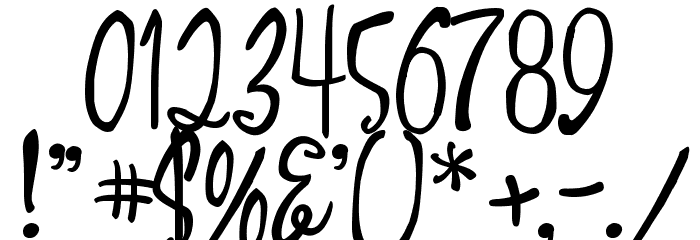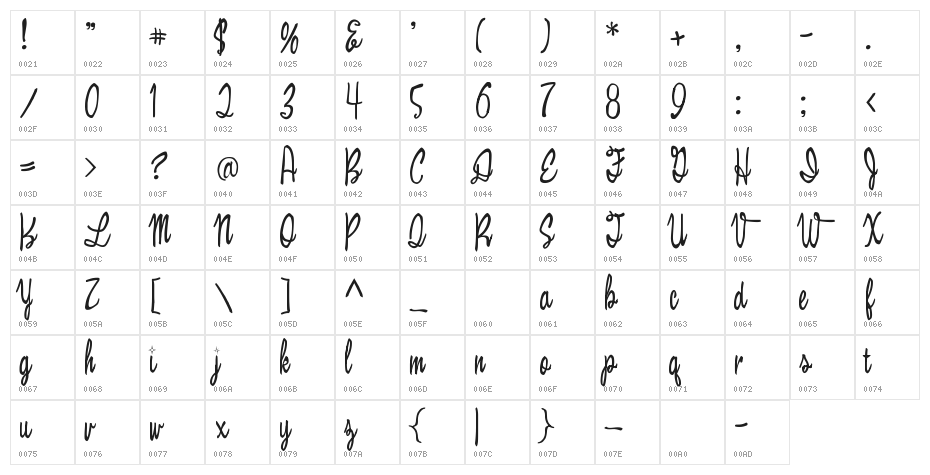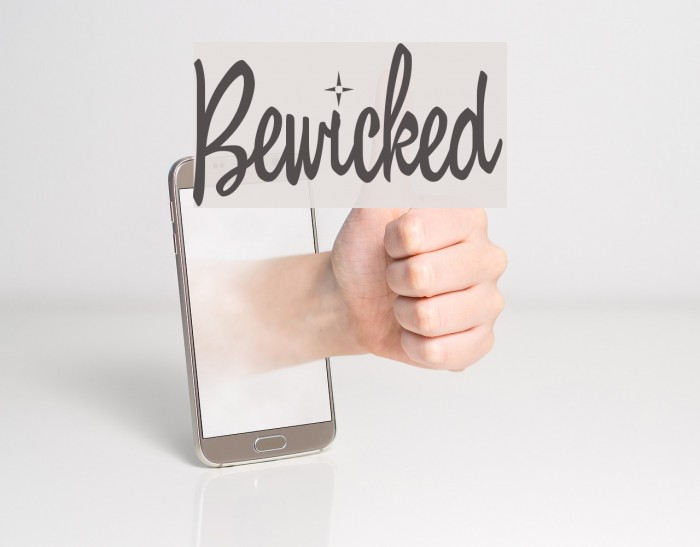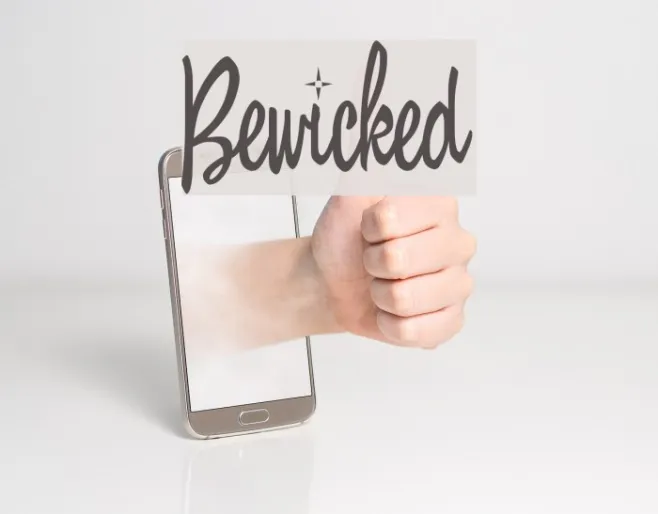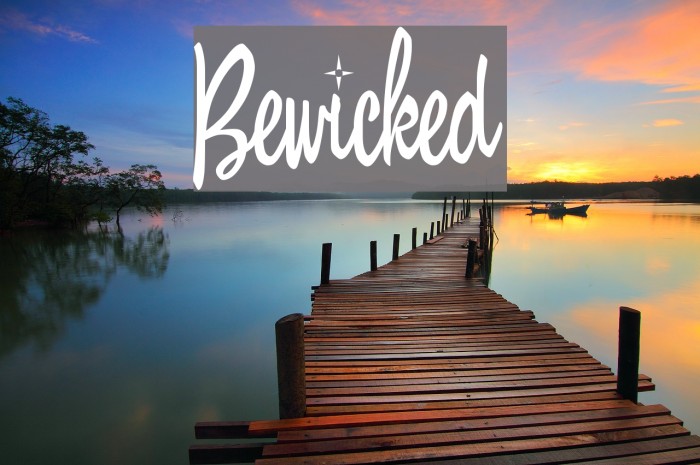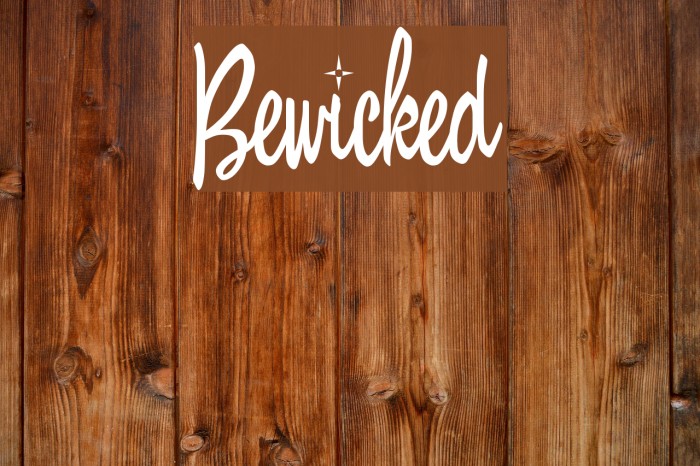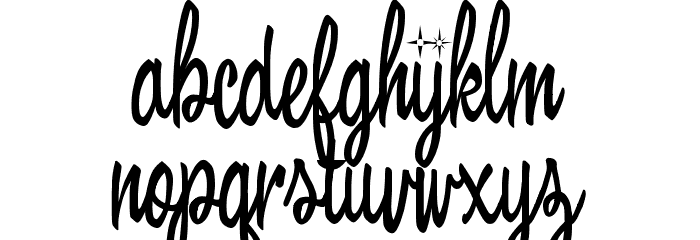
Bewicked Font
Bewicked Description
This font features a whimsical and playful script style with a handwritten appearance. The letters are connected, creating a fluid and continuous flow. The uppercase characters are bold and slightly exaggerated, while the lowercase letters maintain a consistent and elegant form. The numbers and special characters are designed to match the playful nature of the alphabet, with a consistent stroke width throughout. This font exudes a sense of fun and creativity, making it ideal for projects that require a touch of personality and charm.
| Proposed Projects | Ideal for greeting cards, invitations, playful branding, and creative posters. |